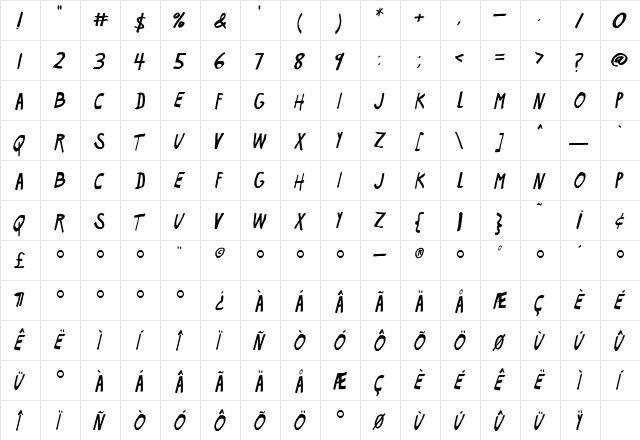
Flyerfonts Regular Font Preview
Flyerfonts Regular
Flyerfonts Regular Font Details
| Foundry | Brand Design Co., Inc |
Design Context for Flyerfonts Typeface
Flyerfonts is a composed and adaptable typeface that performs quietly and consistently across a wide range of design contexts.